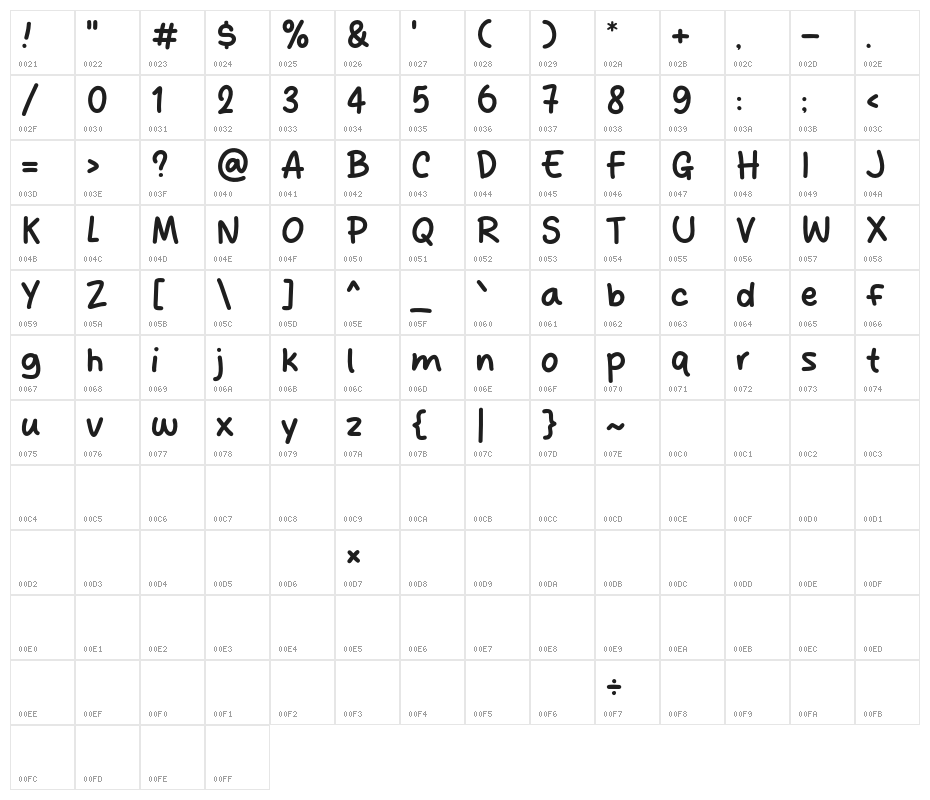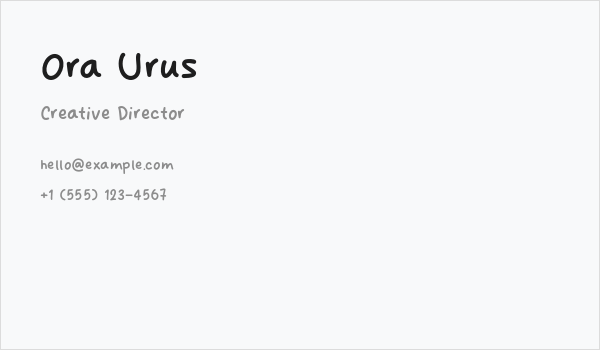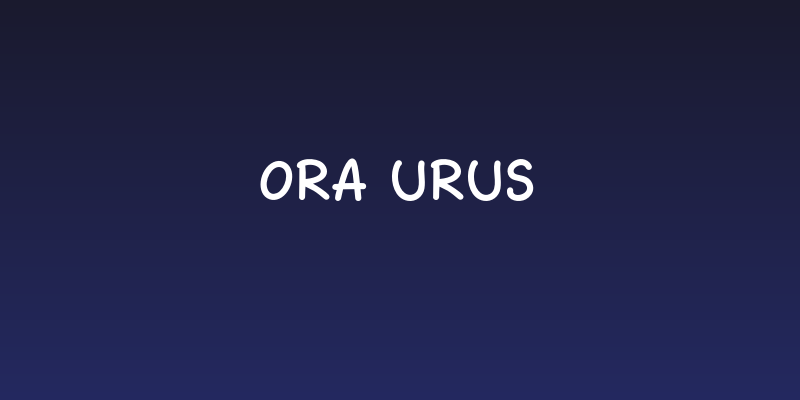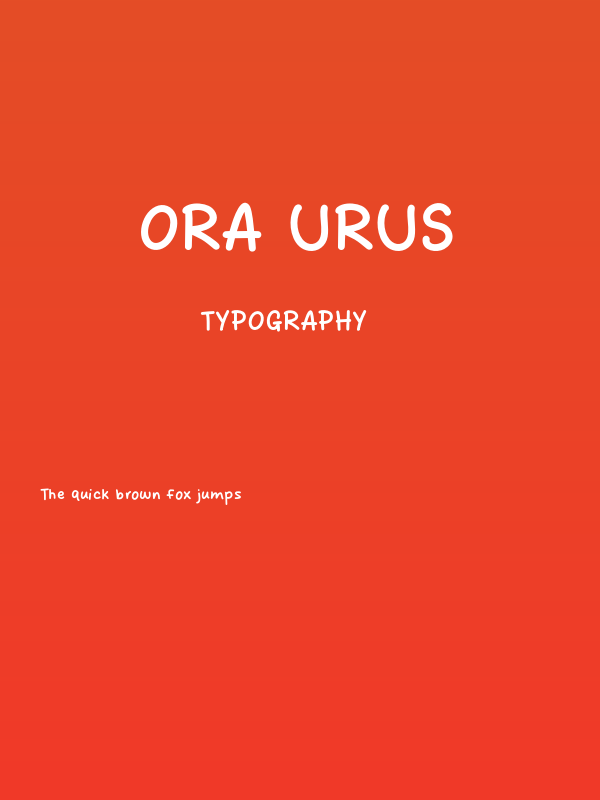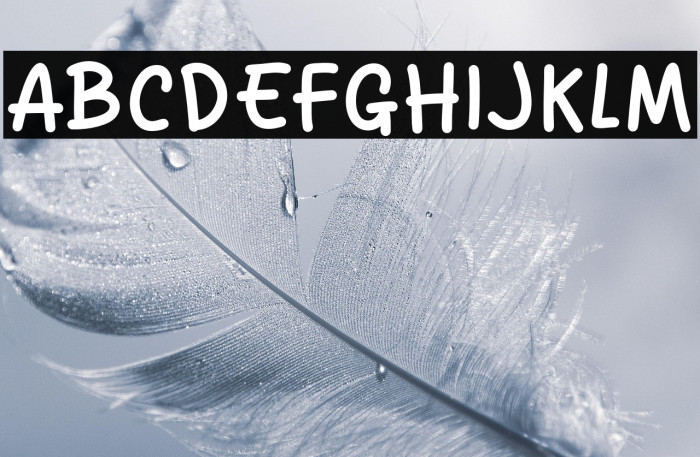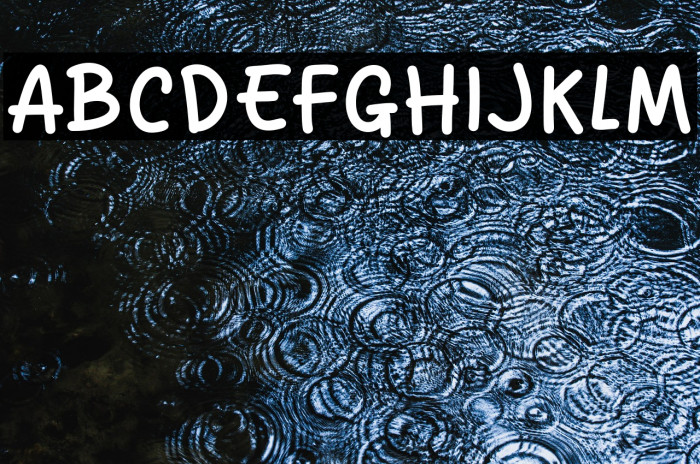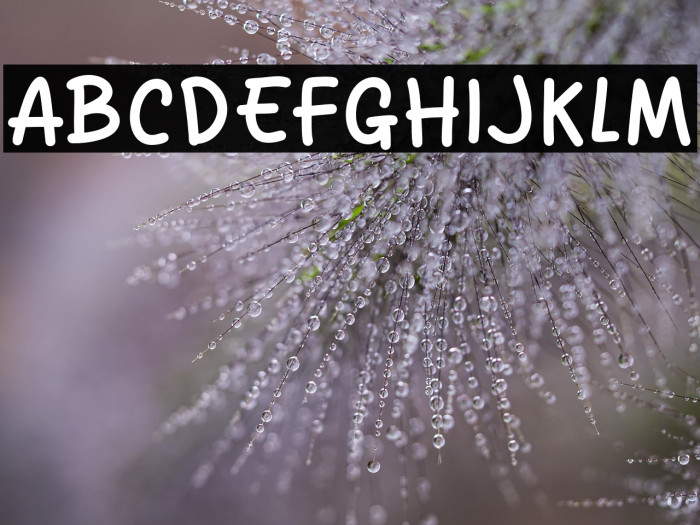
Ora Urus Font
Ora Urus Description
This playful and rounded font exudes a casual and friendly vibe, making it ideal for projects that require a touch of whimsy and approachability. The characters are bold and slightly irregular, giving them a hand-drawn appearance that adds a personal touch. The strokes are consistent in width, contributing to a uniform look while maintaining a lively character. The font includes a full set of uppercase and lowercase letters, numbers, and a variety of special characters, ensuring versatility in design applications.
| Proposed Projects | Ideal for children's books, playful branding, greeting cards, and informal invitations. |